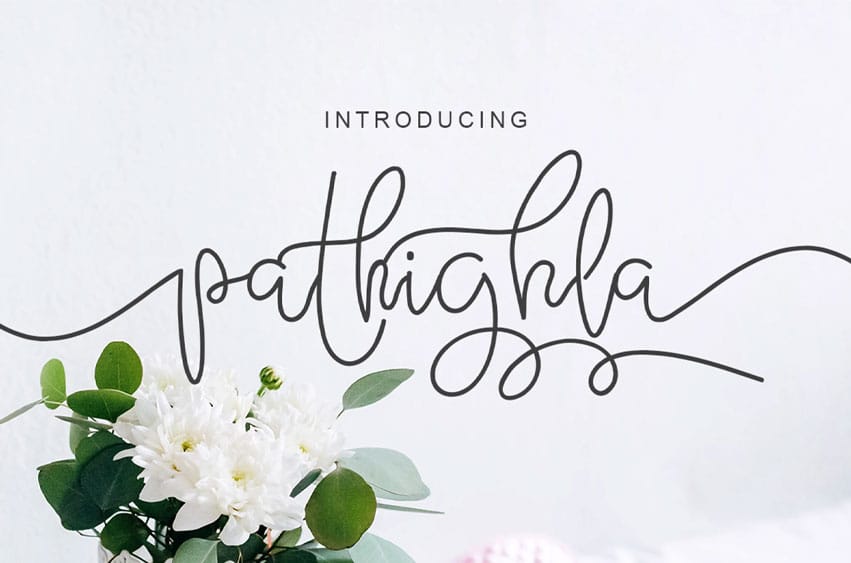
Pathigla Font
Pathigla Font is modern signature script, with modern script style, this font will perfect for many different project ex: quotes, logo, blog header, poster, wedding, banding, fashion, apparel, letter, invitation, stationery, etc…
Every letter has a unique and beautiful touch, which will make your design come alive!